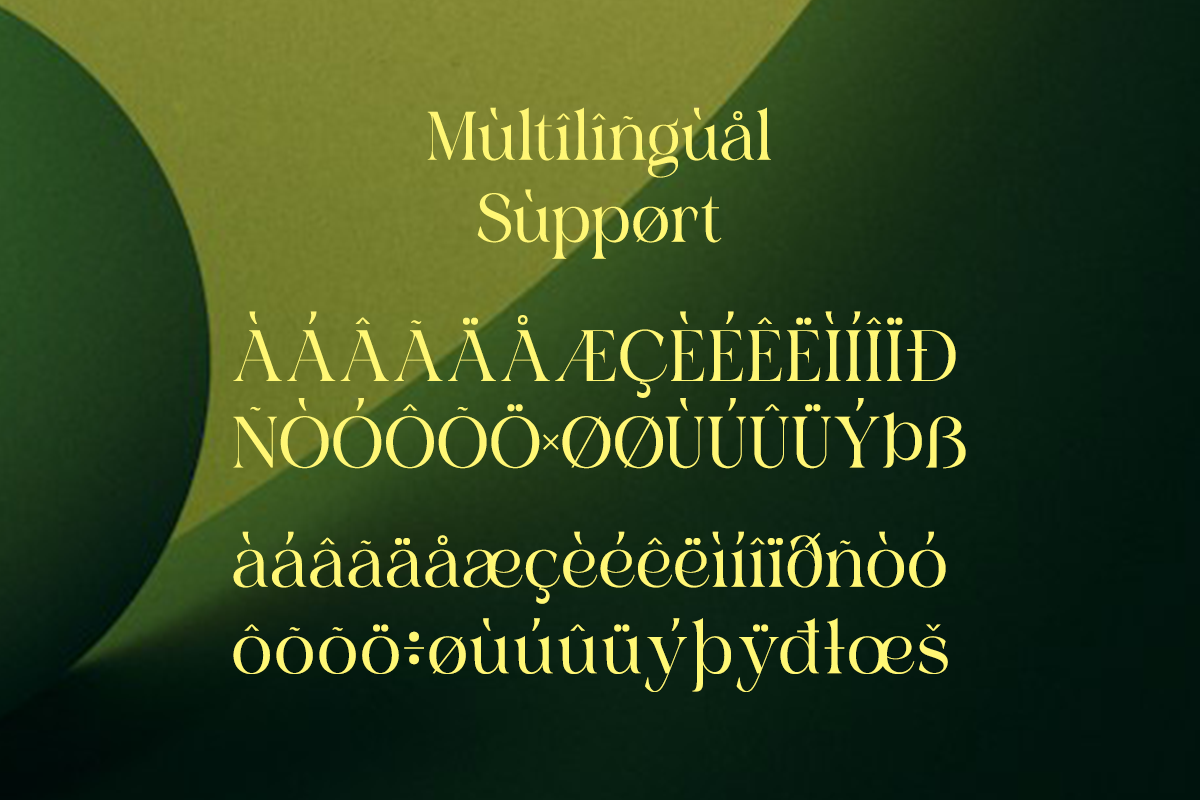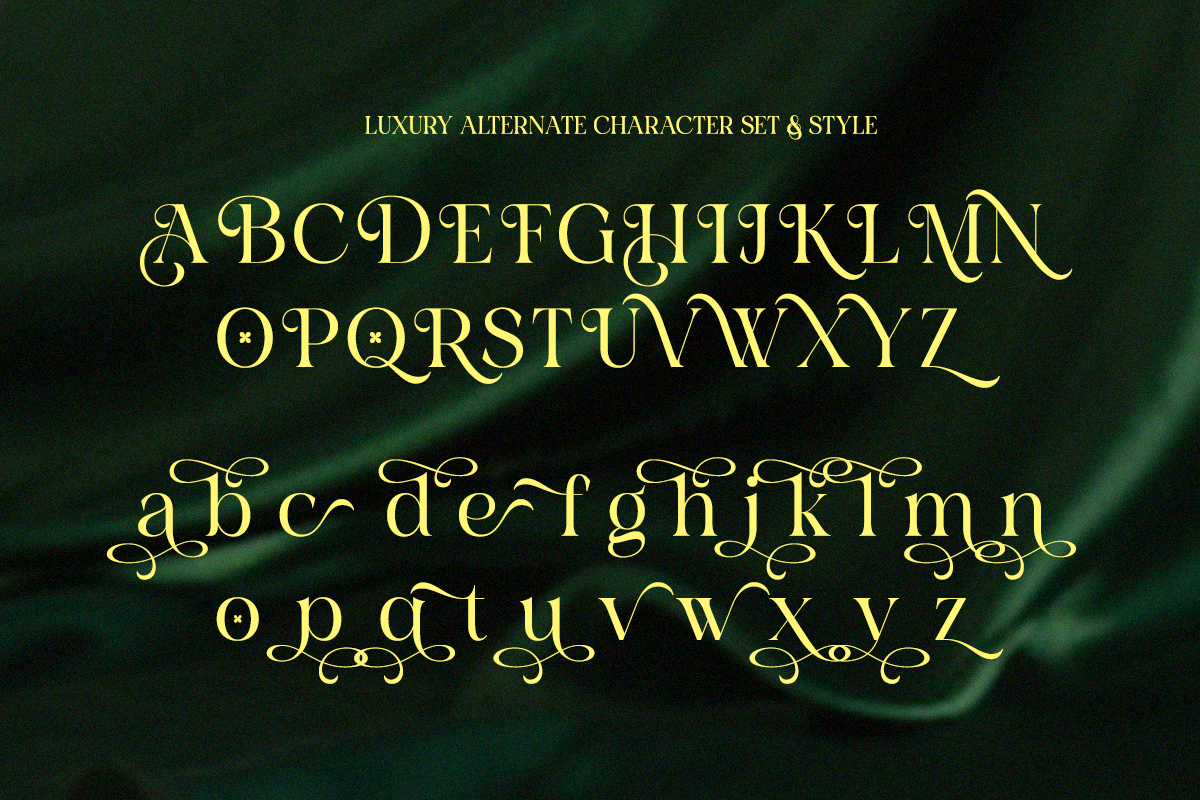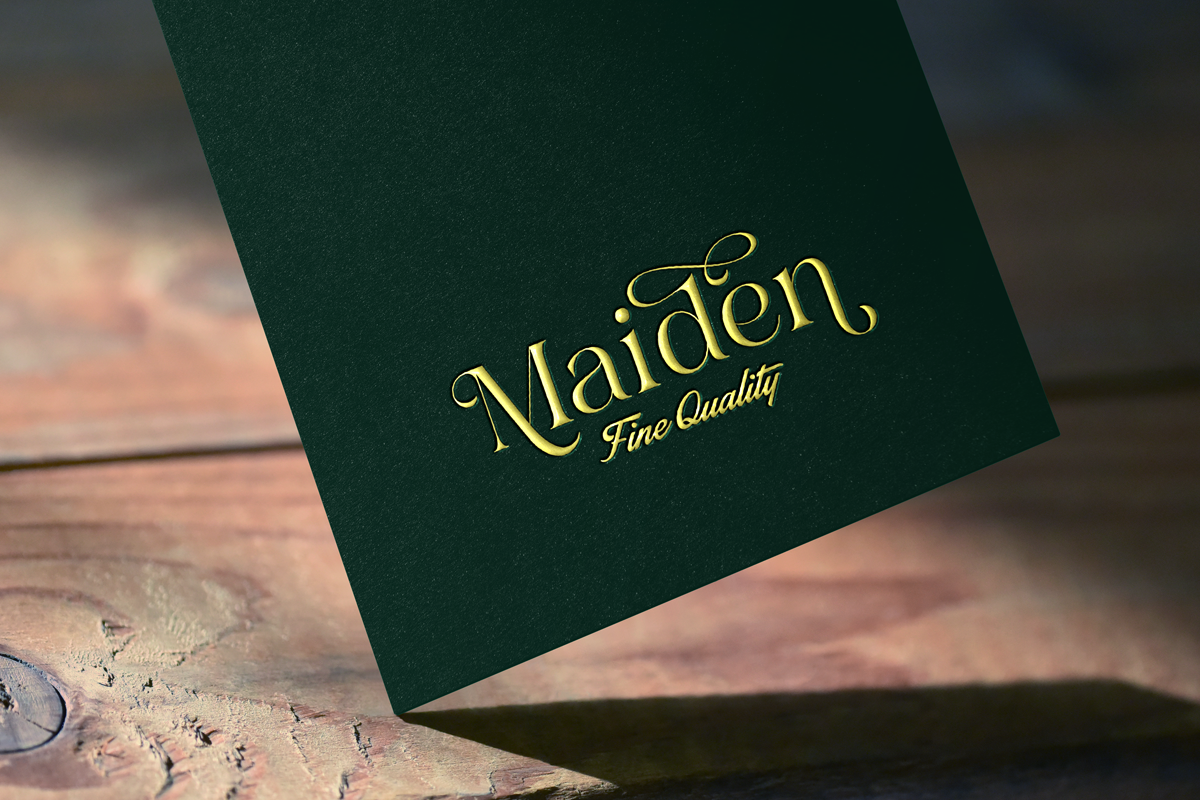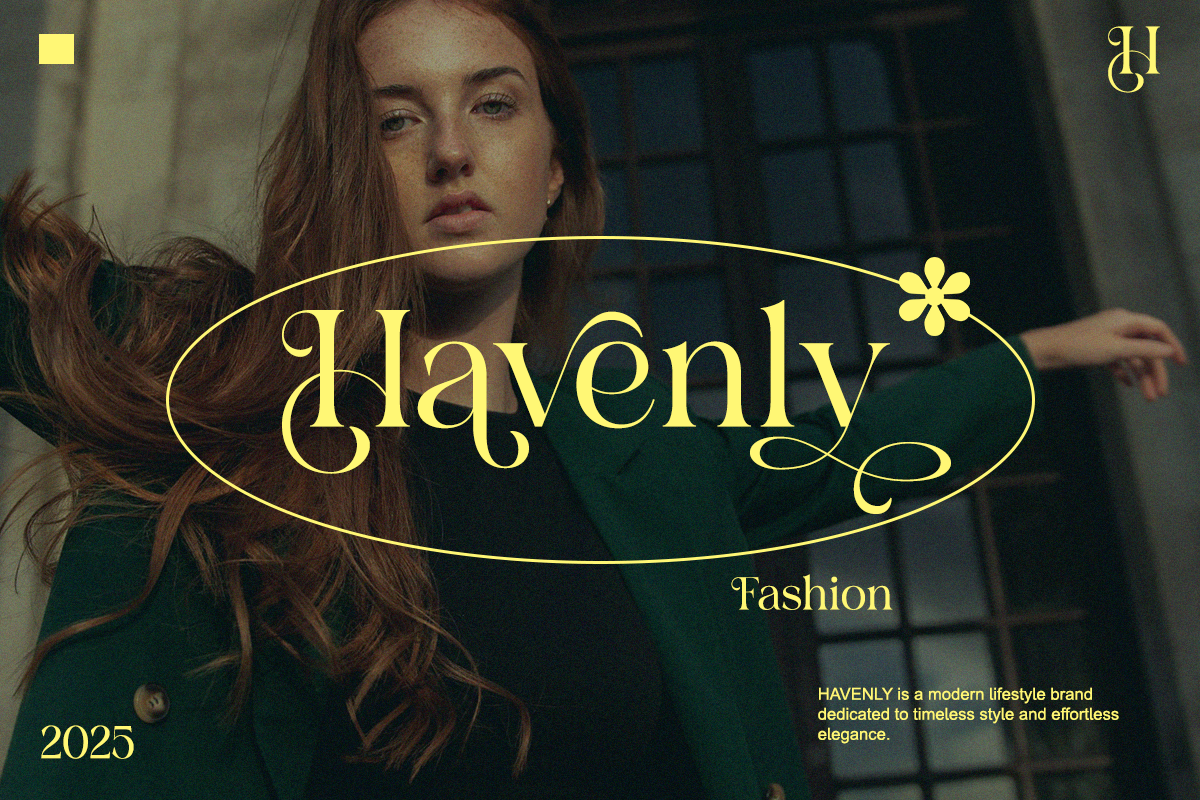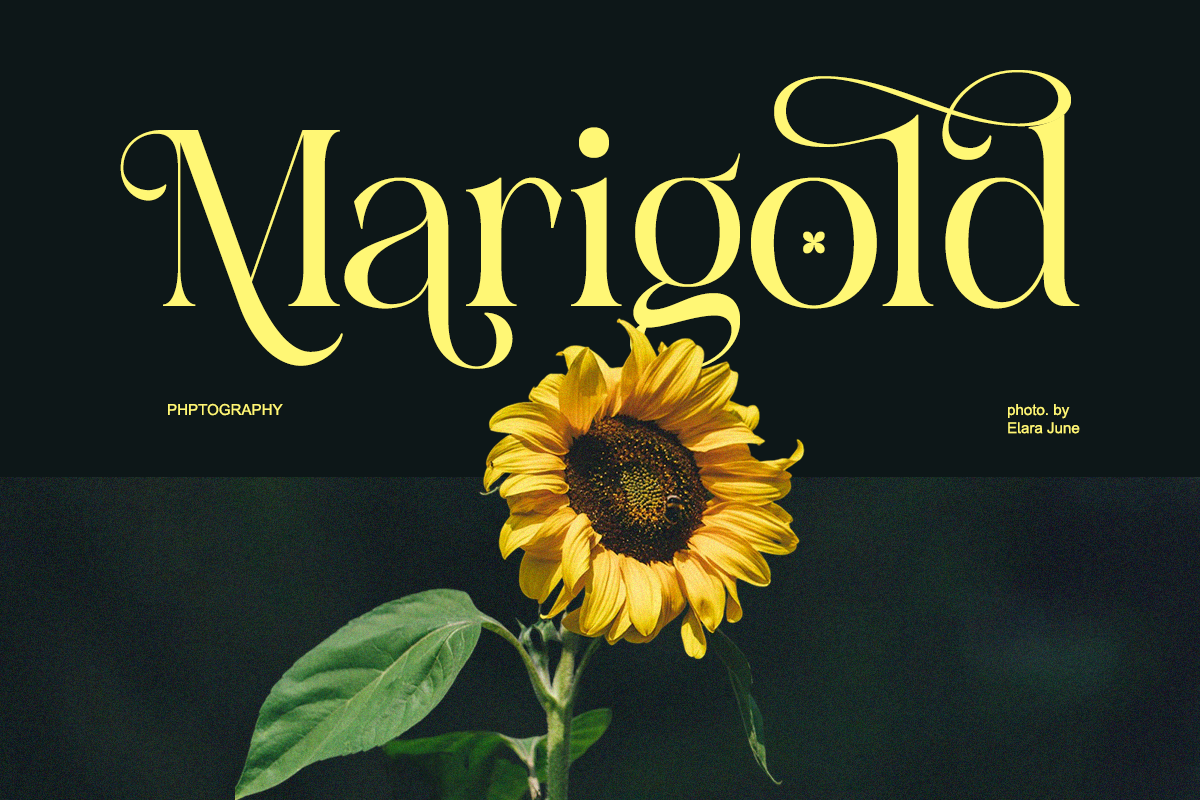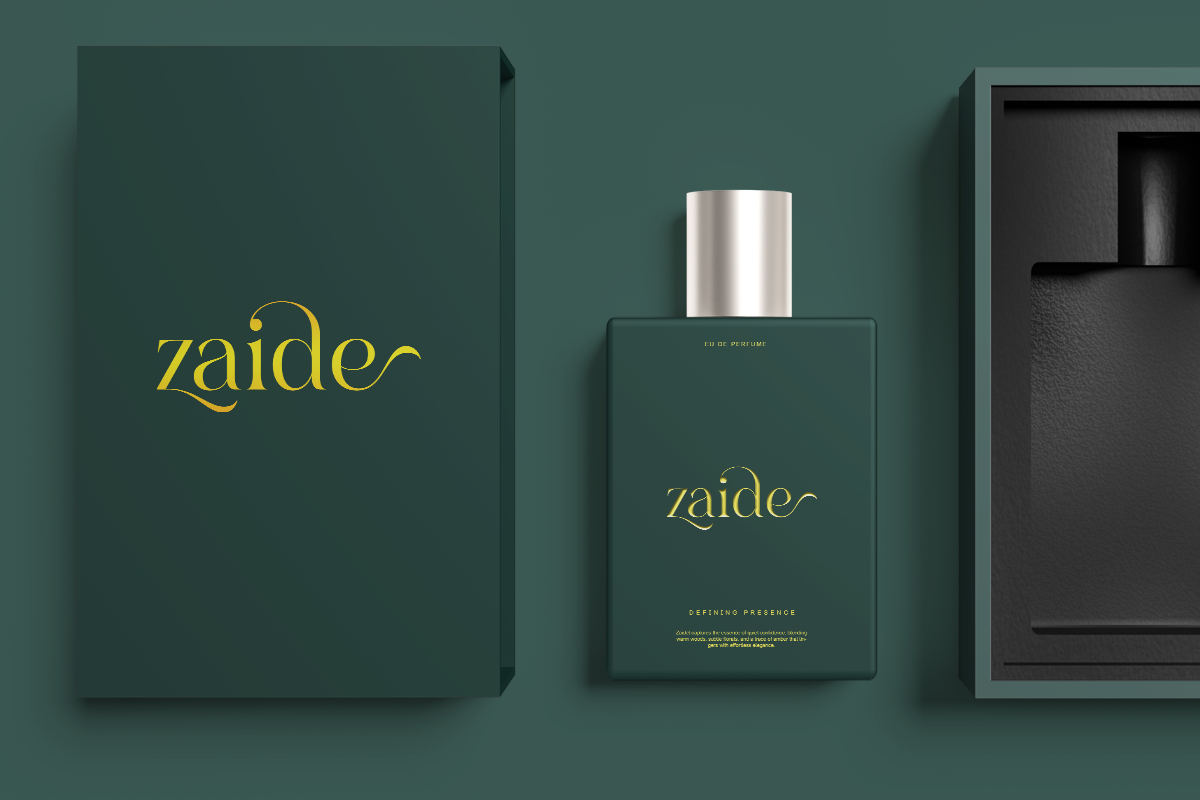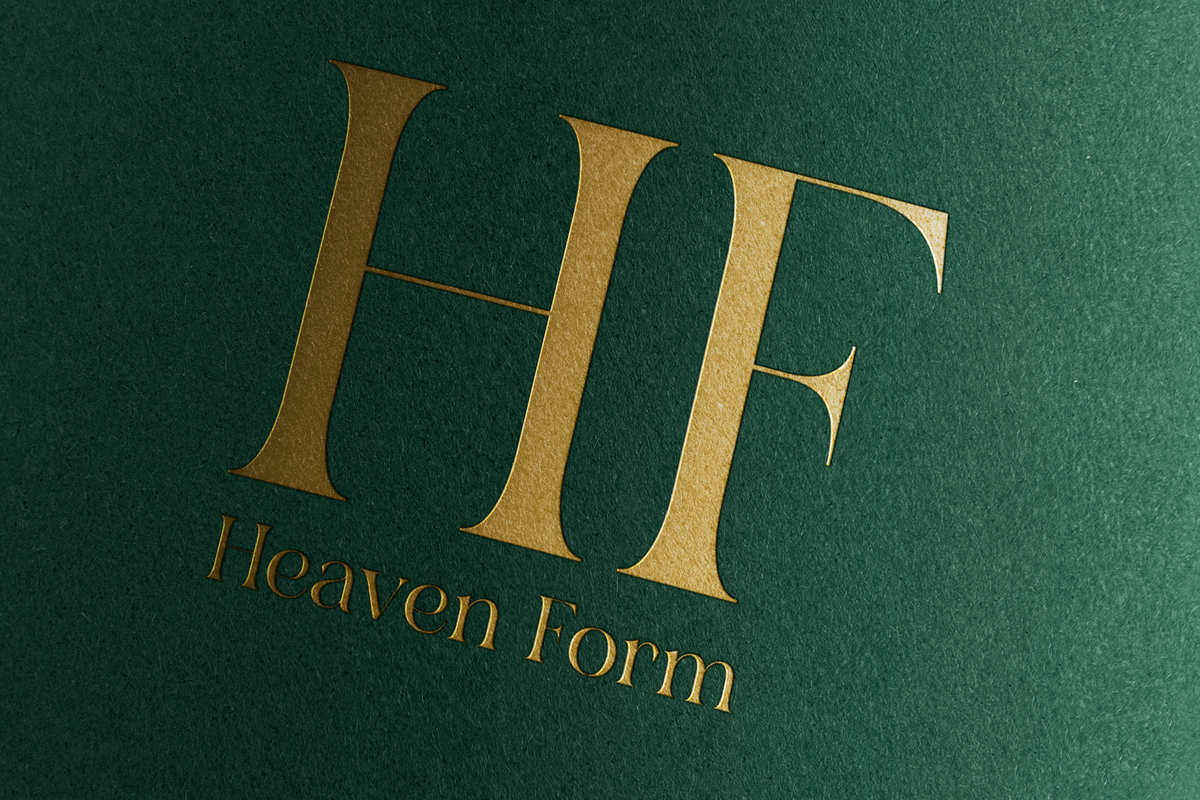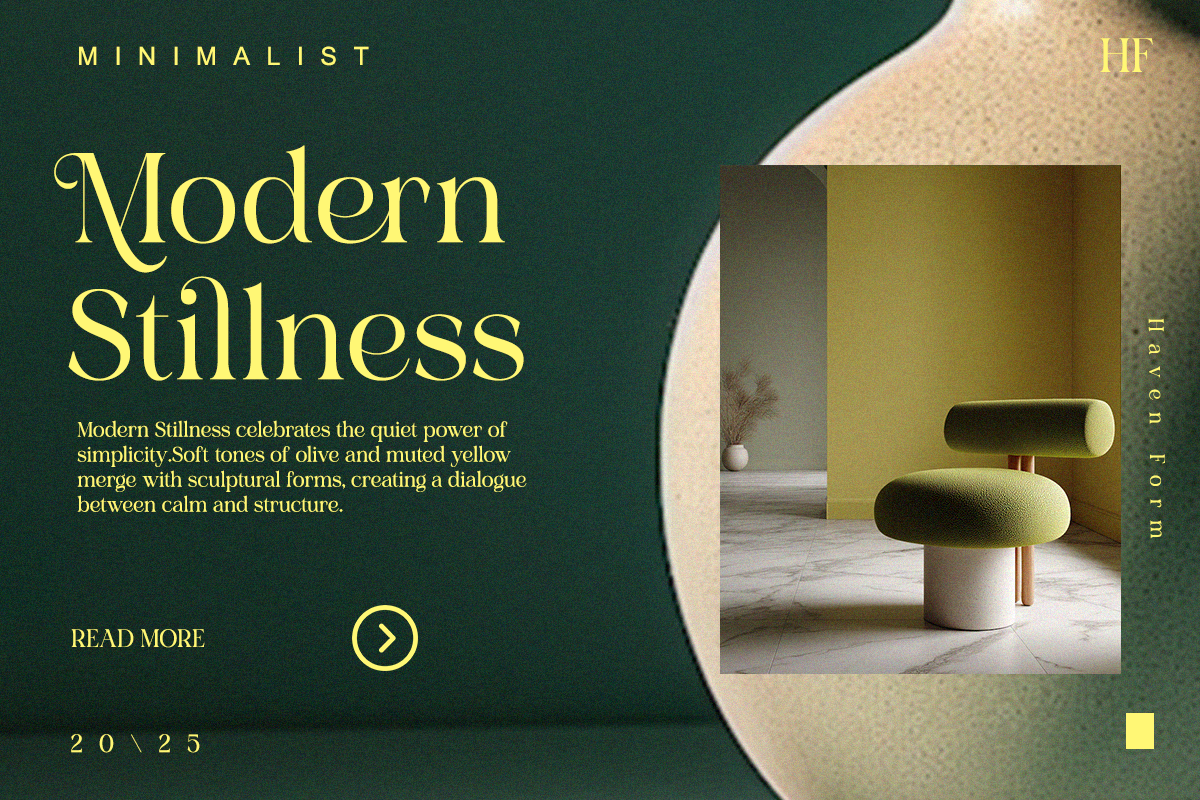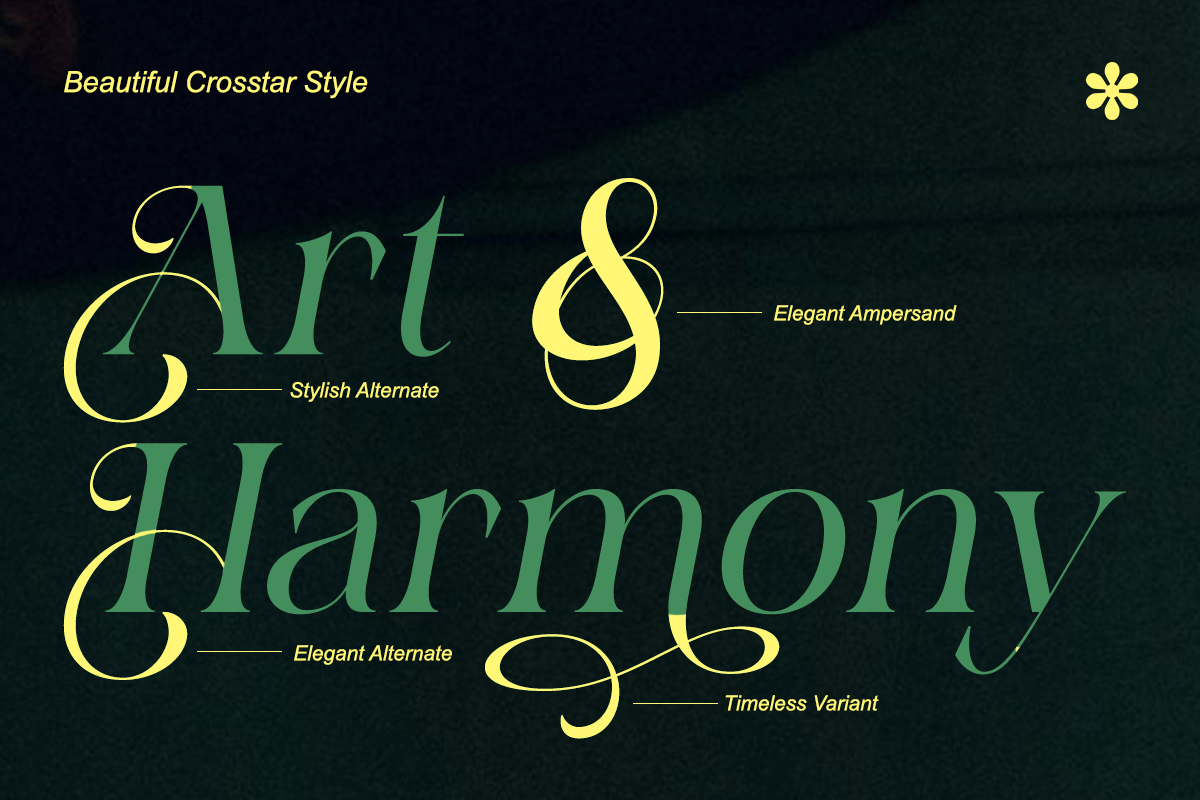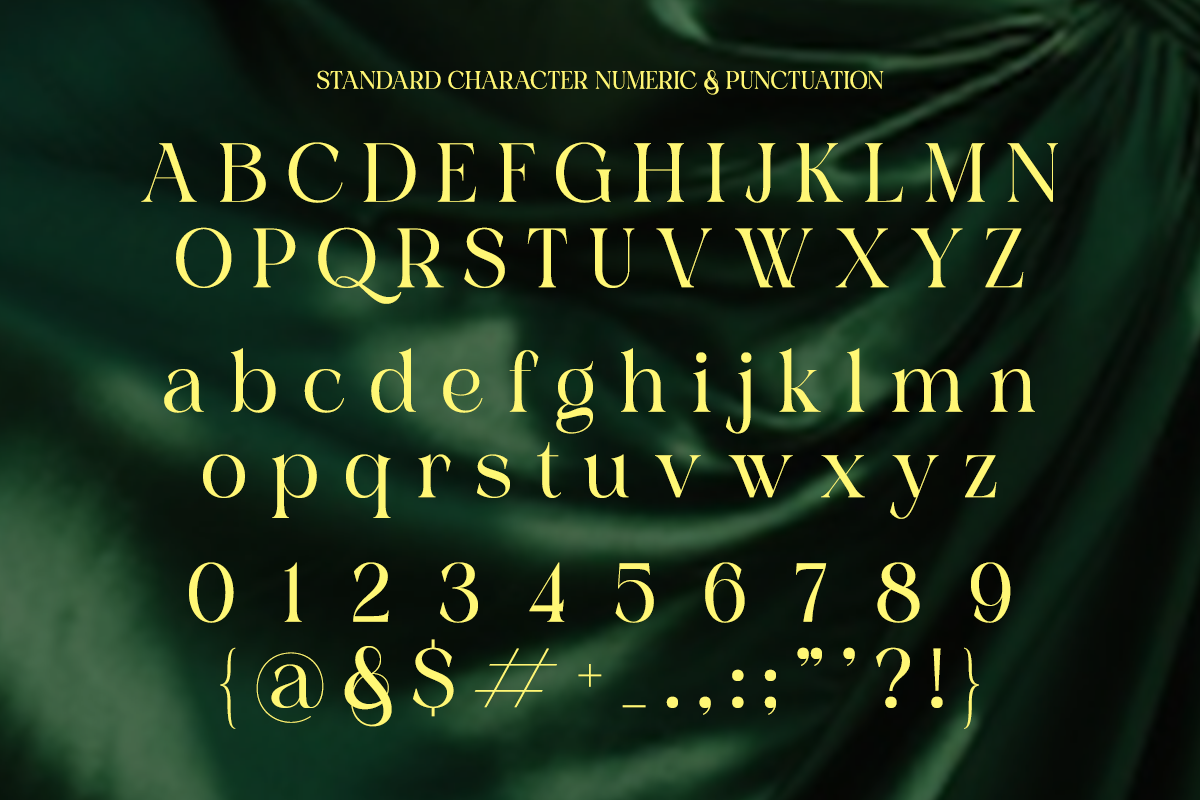
Charon Smith – A Modern Classic
Introducing Charon Smith, a modern classic serif font designed with timeless elegance in mind. Perfect for designers who love refined typography, Charon Smith blends traditional serif structure with a soft modern touch.
Whether used for personal branding, fashion logos, editorial headlines, or boutique identities, this font delivers confidence, clarity, and charm.
- Regular & Italic
- Full uppercase & lowercase
- Classic alternates & ligatures
- Elegant contrast strokes
Perfect For Personal branding, boutique logos, editorial design, fashion brands, book covers, wedding stationery, and premium visual identities.